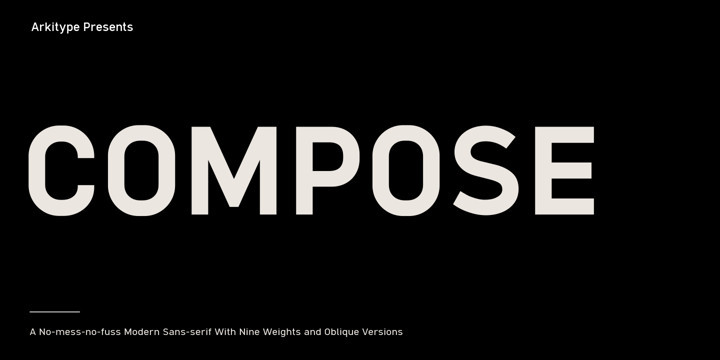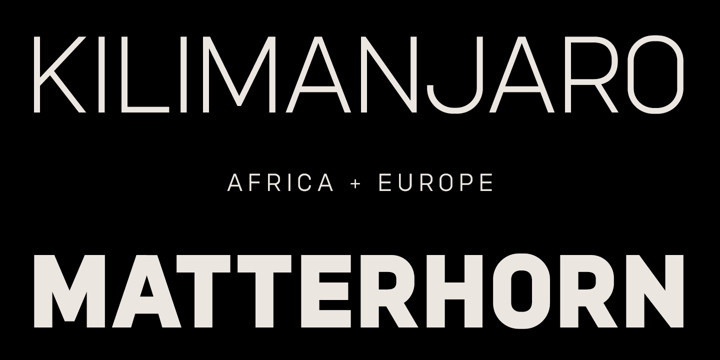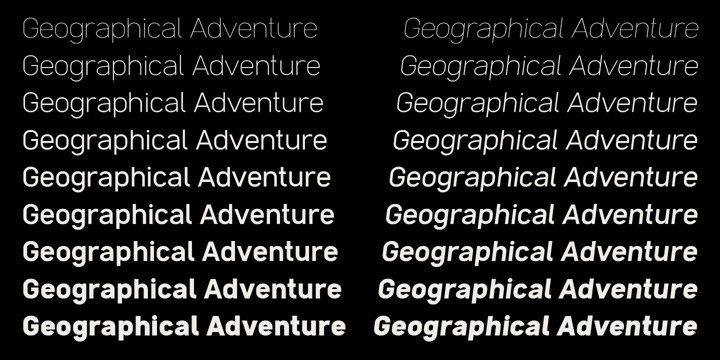
Compose Font
Compose FontCompose is a clean modern and minimal font family. It has nine weights each with an oblique version. Compose has alternate “a” and “y” options as stylistic sets, circled numerals, arrows and more to make up the extensive character set. Suited for graphic design and display use.
It is an excellent editorial typeface option as well as a perfect fit for web, signage, corporate and branding.
With a higher x-height Compose had great legibility in smaller sizes, it is versatile typeface and a great addition to your font library, a typeface that can easily become a go to font option.